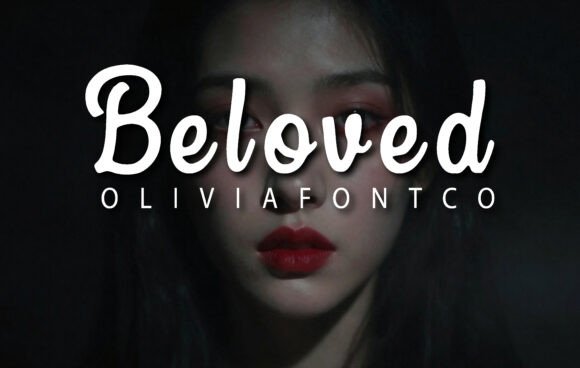
The Beloved Font: A Timeless Choice for Elegant Designs
I’ll never forget the design project that led me to discover the Beloved font. I was working on a luxury wedding invitation for a client who wanted a sophisticated, high-end feel. As I scrolled through font after font, nothing seemed quite right – until I stumbled upon Beloved. Its dramatic, sweeping curves and luxurious feel instantly captivated me, and I knew I’d found the perfect fit. In this article, I’ll share my love for the Beloved font, its features, and how to make the most of it in your designs.
What I Love About the Beloved Font ✨
• ✅ Dramatic, thick-to-thin strokes that give the text a sense of luxury and femininity
• ✅ Beautiful, sweeping connections that make the font perfect for display use
• ✅ A comprehensive set of stylistic alternates, gorgeous ligatures, and multilingual glyphs for incredible customization
• ✅ Perfect for high-end fashion branding, wedding invitations, elegant magazine titles, logo design, and more
While the Beloved font is stunning, there are a few things to keep in mind:
• 🤔 Legibility at small sizes: While beautiful, the font’s dramatic strokes and connections can make it harder to read at smaller sizes. Use it for headlines or display text for the best impact.
• ⚠️ Overuse of stylistic alternates: With so many alternates available, it’s easy to get carried away. Balance them with the regular font to maintain readability.
The Story Behind the Beloved Font
The Beloved font was designed with classic Hollywood glamour in mind. Its creator wanted to capture the essence of old-school luxury and sophistication, with a modern twist. The result is a font that’s both nostalgic and modernly chic.
What makes the Beloved font so special? The Beloved font’s dramatic strokes, sweeping connections, and comprehensive set of stylistic alternates make it perfect for high-end designs.
Is the Beloved font difficult to read? While beautiful, the Beloved font can be challenging to read at small sizes. Use it for headlines or display text for the best impact.